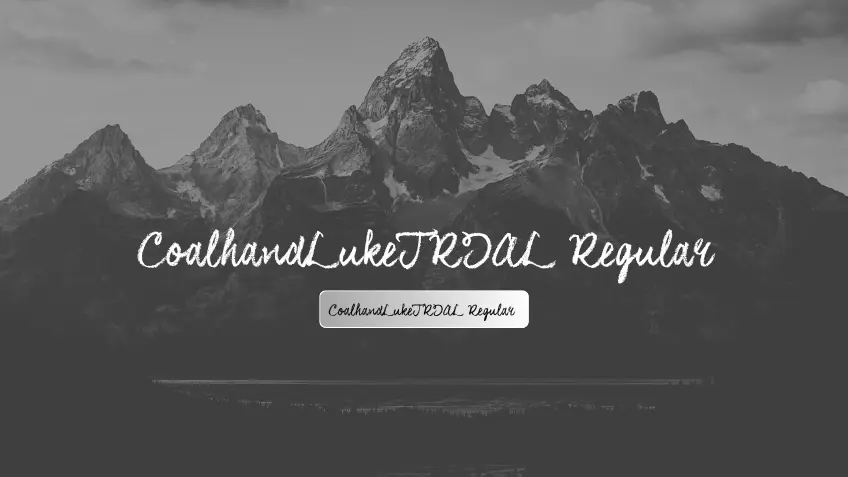
CoalhandLukeTRIAL Regular
The font CoalhandLukeTRIAL Regular, designed by JJW van der Ham, falls under the Display category & Coalhand Luke font family. Its smooth, flowing letterforms make it a versatile choice for projects that require both elegance and readability. Coalhand Luke is particularly well-suited for Branding, Logo, Quotes, Event Posters, Social media graphics, Album Art, Event flyers and Book covers. With its balance of simplicity and decorative appeal, this font brings a polished touch to both personal and professional designs.